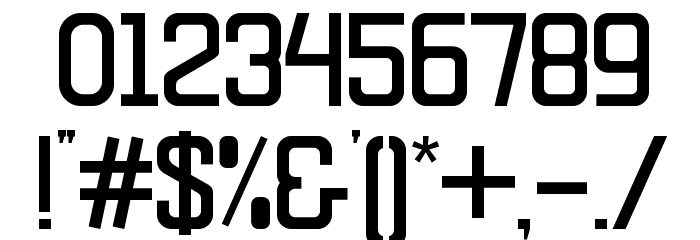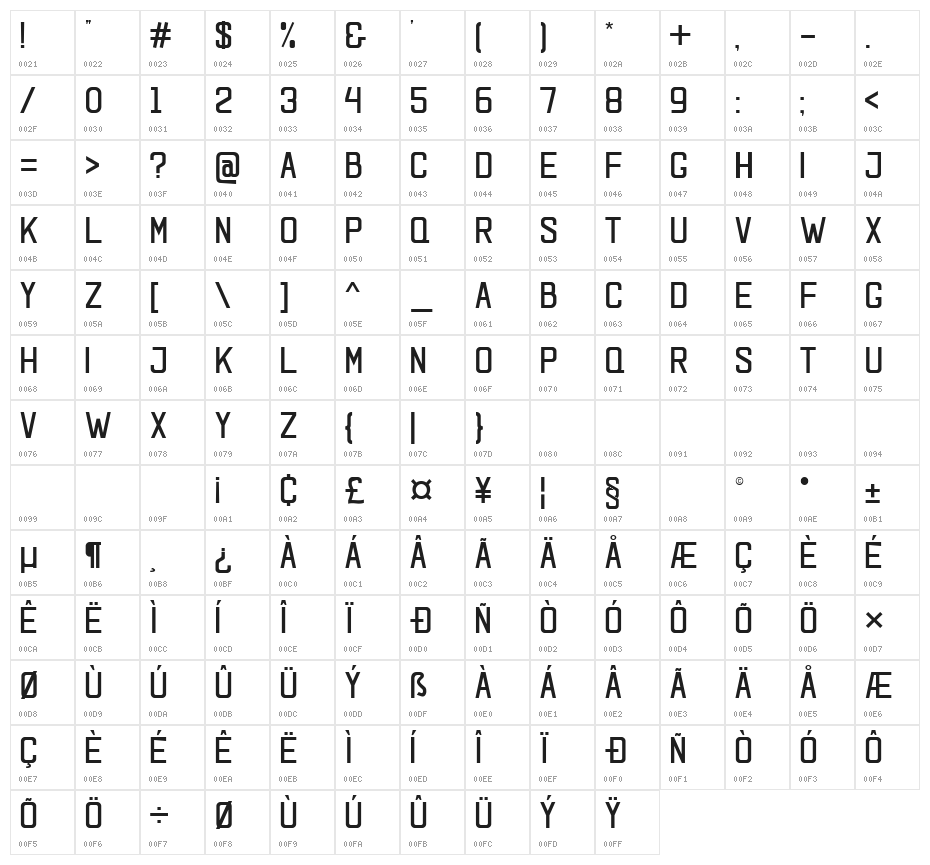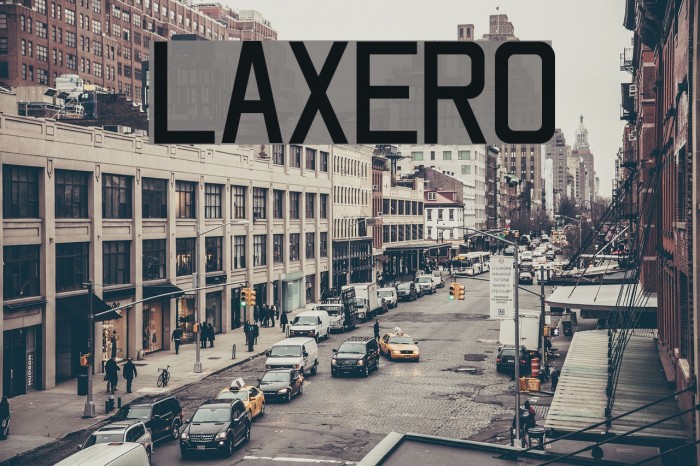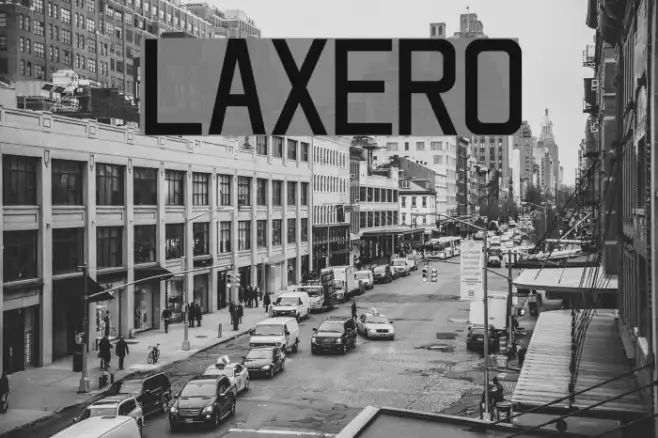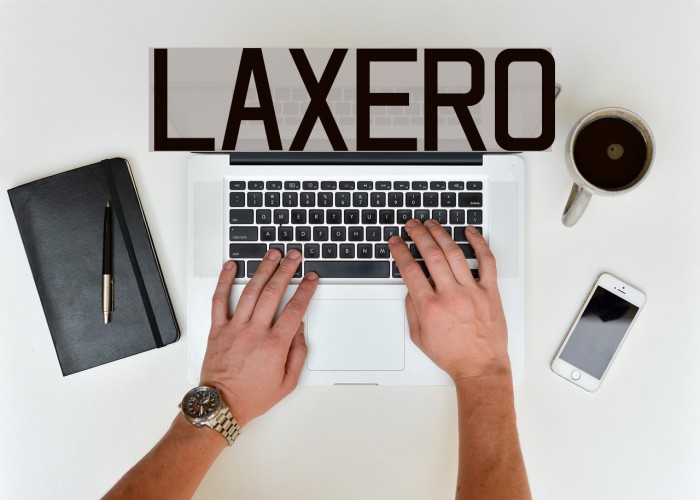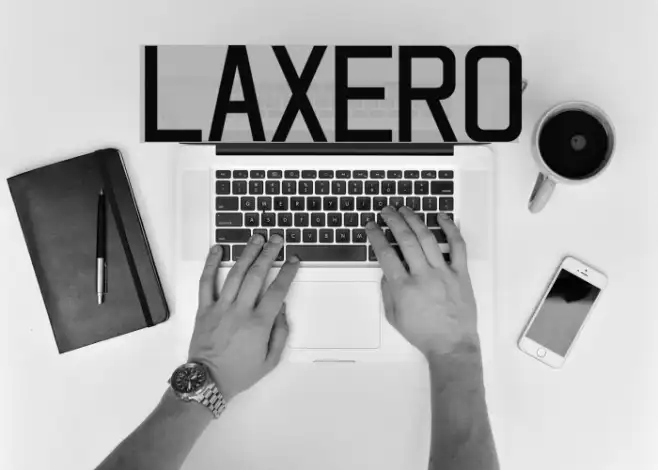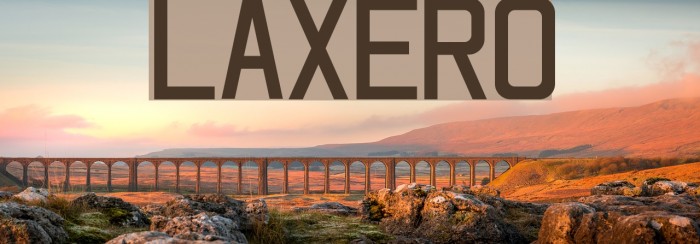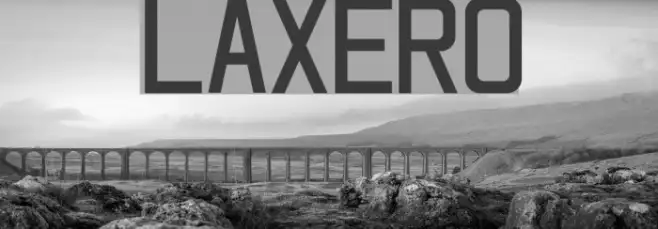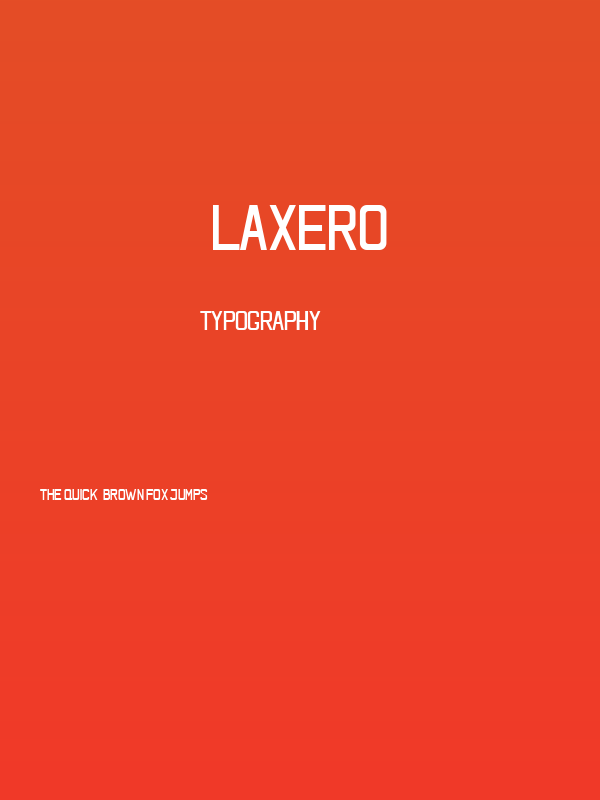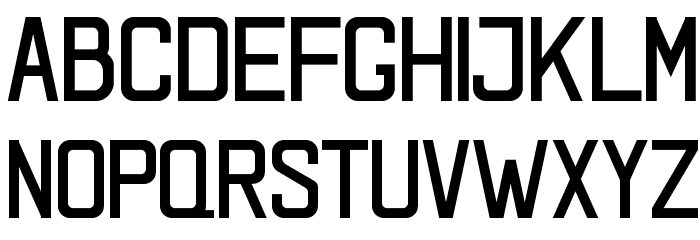
laxero Font
laxero Description
This font features a bold and modern geometric design with clean, straight lines and a strong presence. The uppercase letters are uniform in height, giving a cohesive and structured appearance. The numerals are equally bold, maintaining the geometric style with consistent line thickness. Special characters are designed to match the overall aesthetic, ensuring a seamless integration with text. The font's style is suitable for projects that require a contemporary and assertive look, making it ideal for headlines, branding, and advertising.
| Proposed Projects | Ideal for branding, headlines, advertising, and modern design projects. |